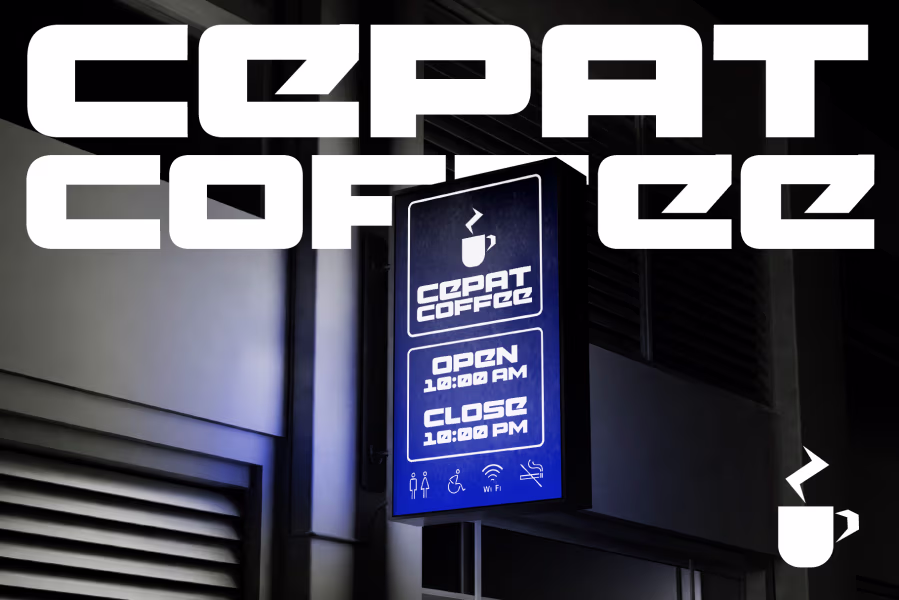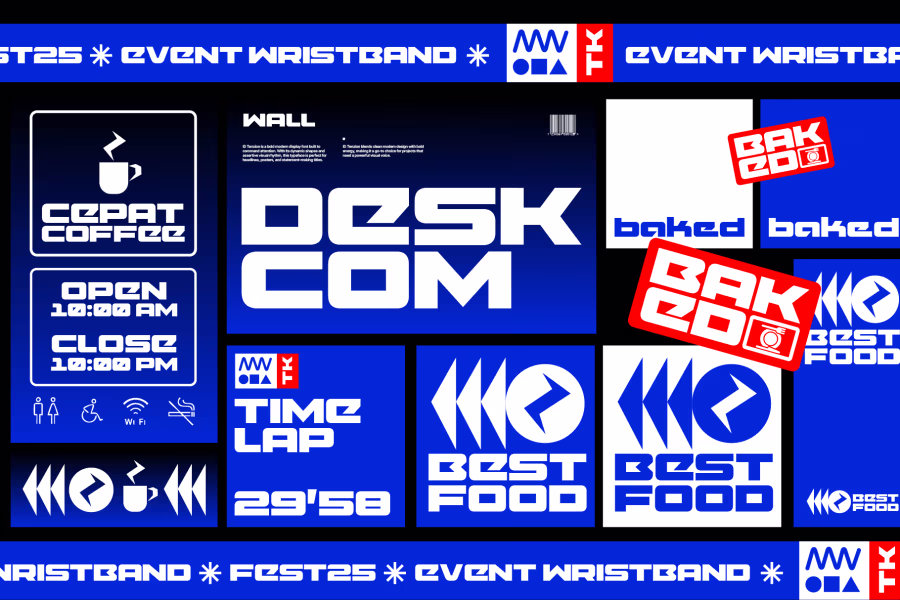
ID Tenzion Font
ID Tenzion Font is a bold modern display font built to command attention. With its dynamic shapes and assertive visual rhythm, this typeface is perfect for headlines, posters, and statement-making titles. ID Tenzion blends clean modern design with bold energy, making it a go-to choice for projects that need a powerful visual voice.